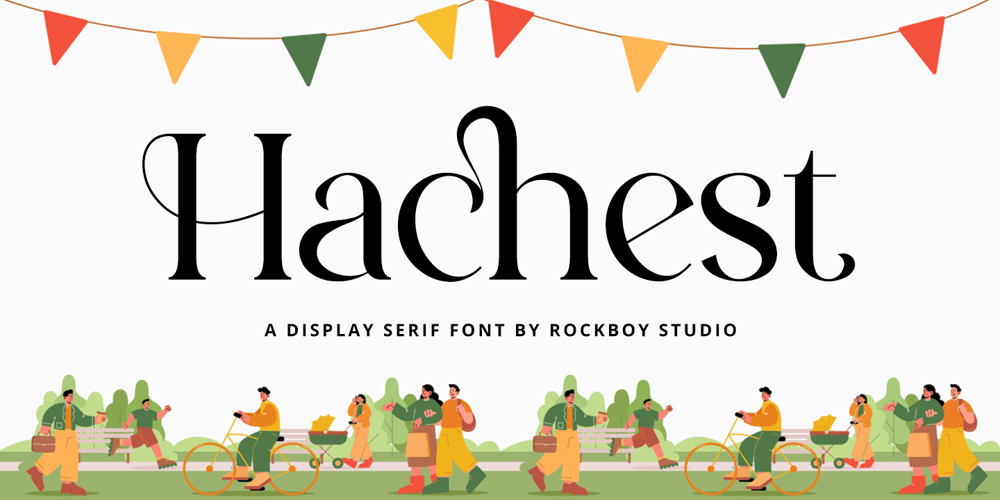
Hachest
Hachest font
Hachest Font Family was designed by Hayinah and published by Rockboys Studio. Hachest contains 1 styles and family package options. Hachest is an elegant, thin-lettered, and distinct serif font. Suitable for a wide variety of designs due to its neat and clean style, this font has the potential to become your favorite go-to font, no matter the occasion!